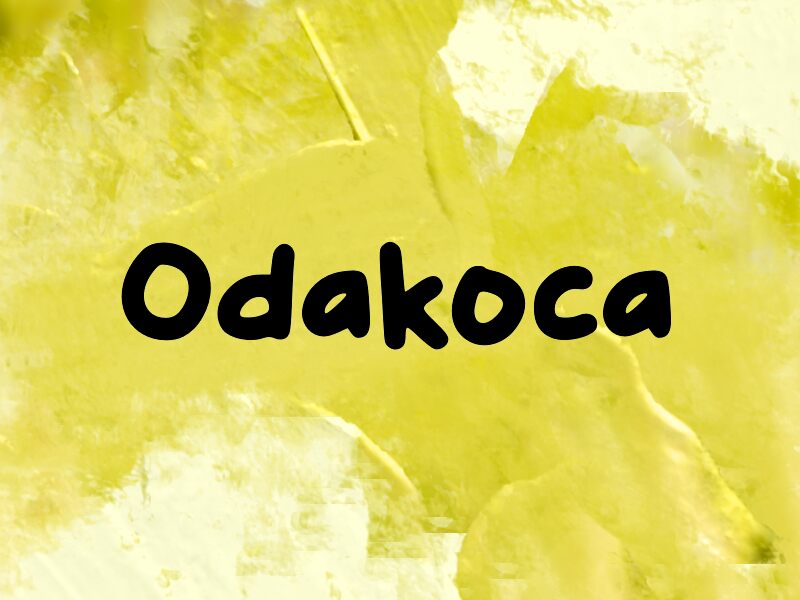
Odakoca font is a free cartoon style typeface with a modern approach. Designed by wep, it takes inspiration from contemporary applications in children's books and informal branding. The font's rounded, casual, friendly, informal, modern, approachable, smooth, relaxed, contemporary characteristics can be of great help if translated into projects.
Odakoca font makes a suitable choice for comics, kids’ branding, book covers, YouTube channels, quirky packaging design, interesting digital content, poster design, and others. Use it for a creative headline or get innovative and make it the center of your project.